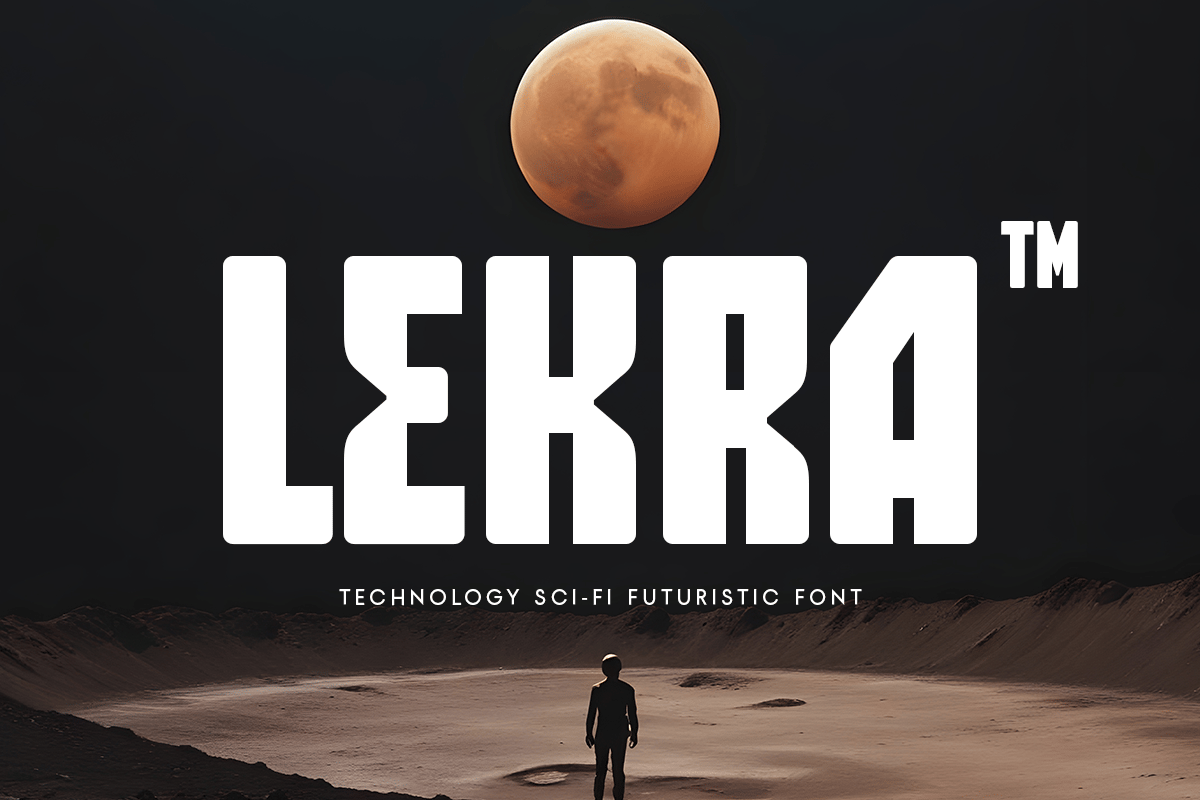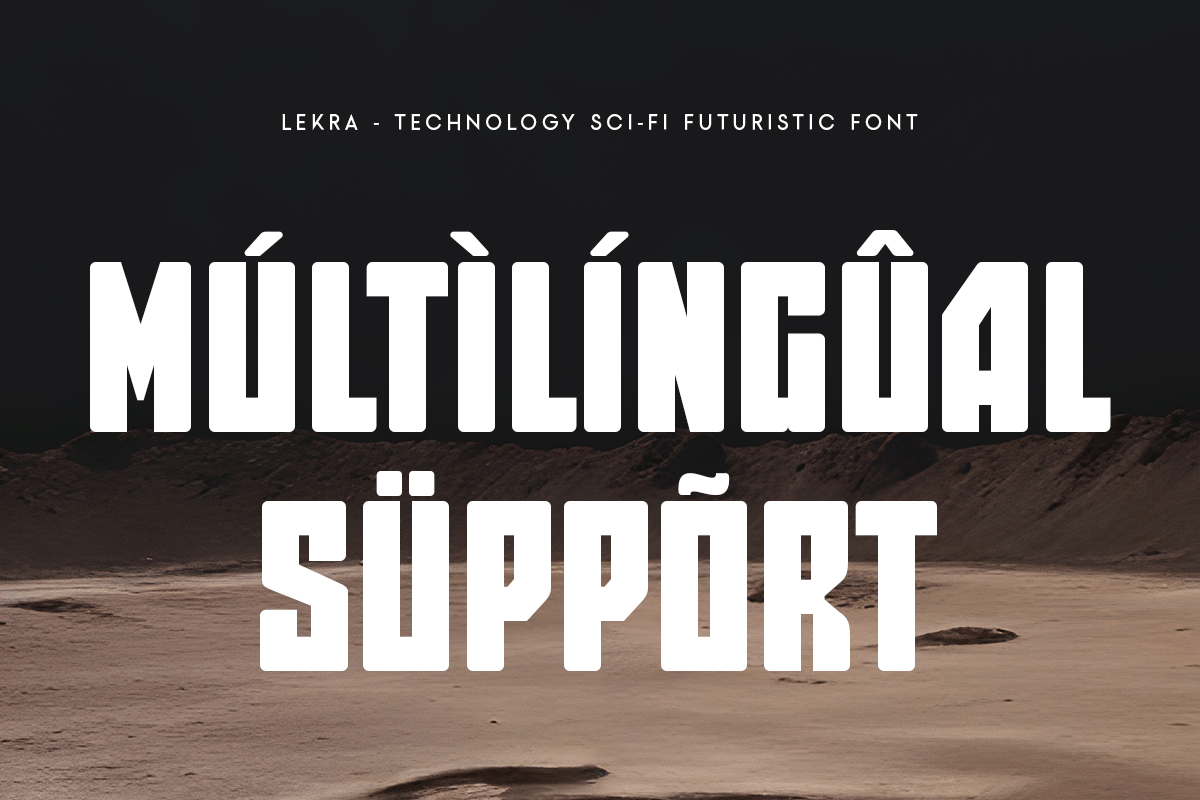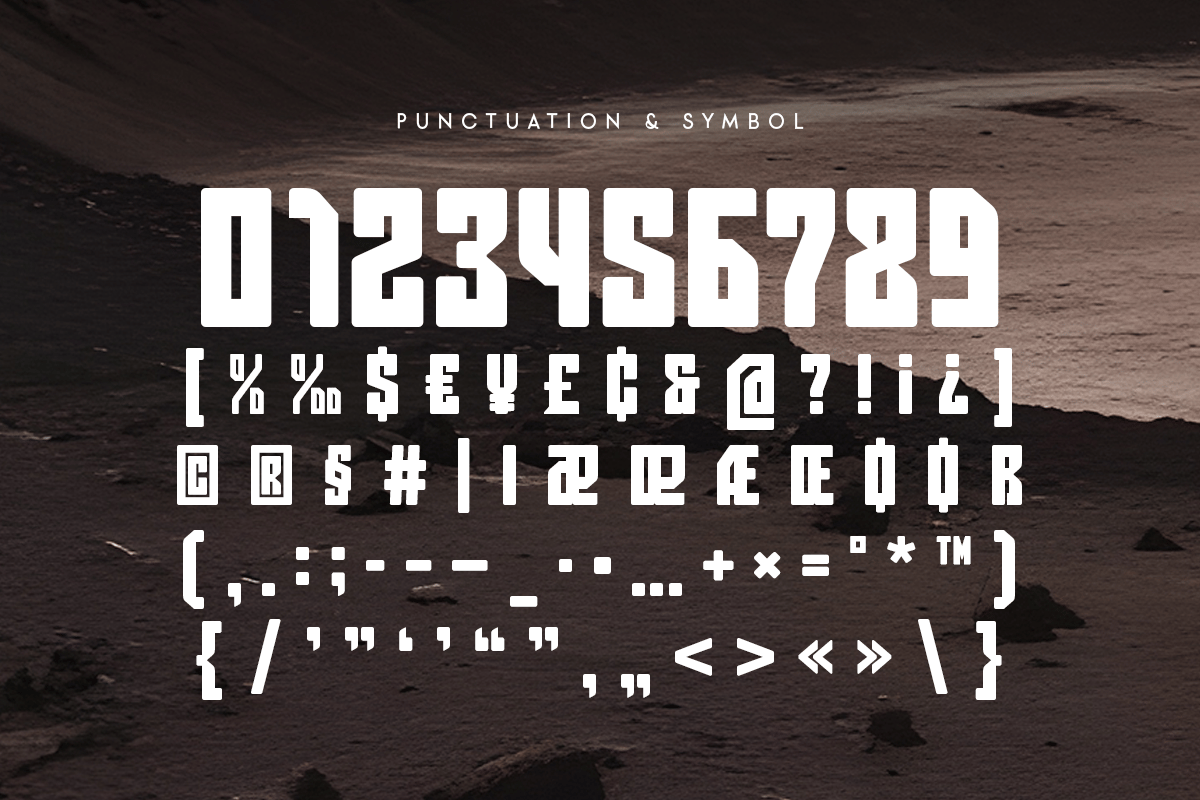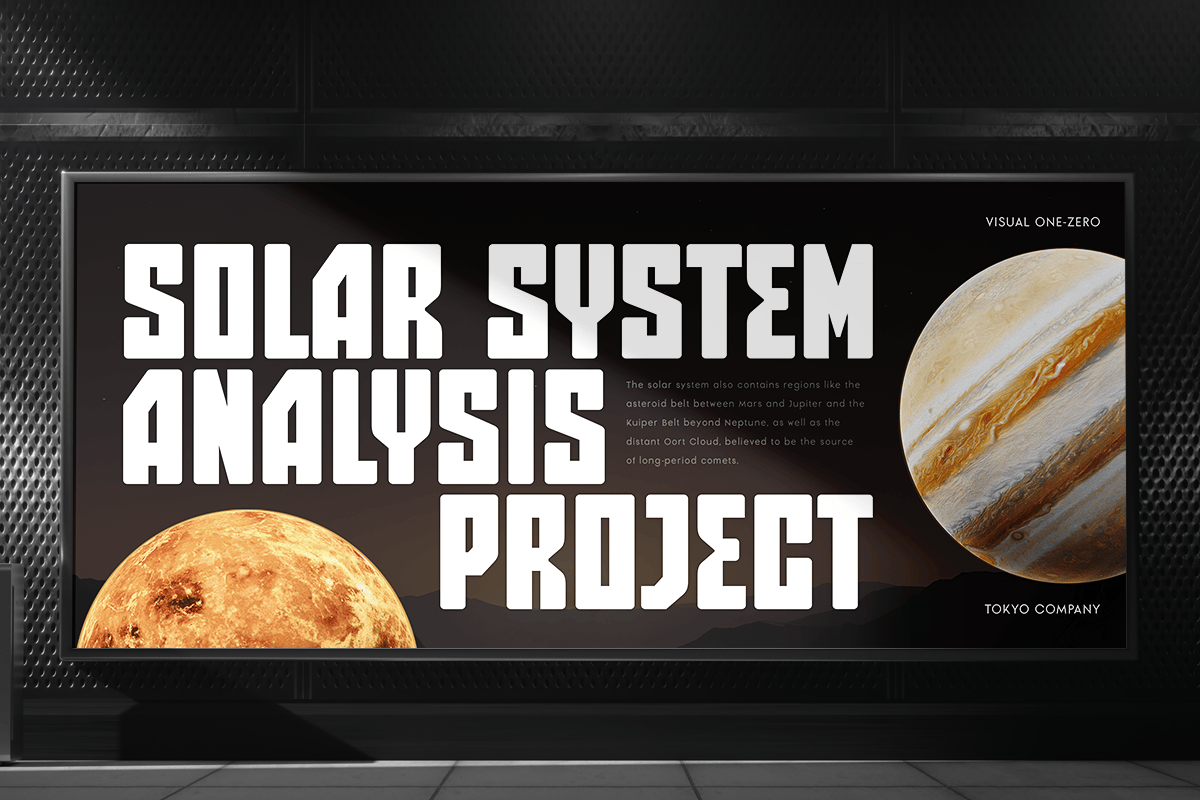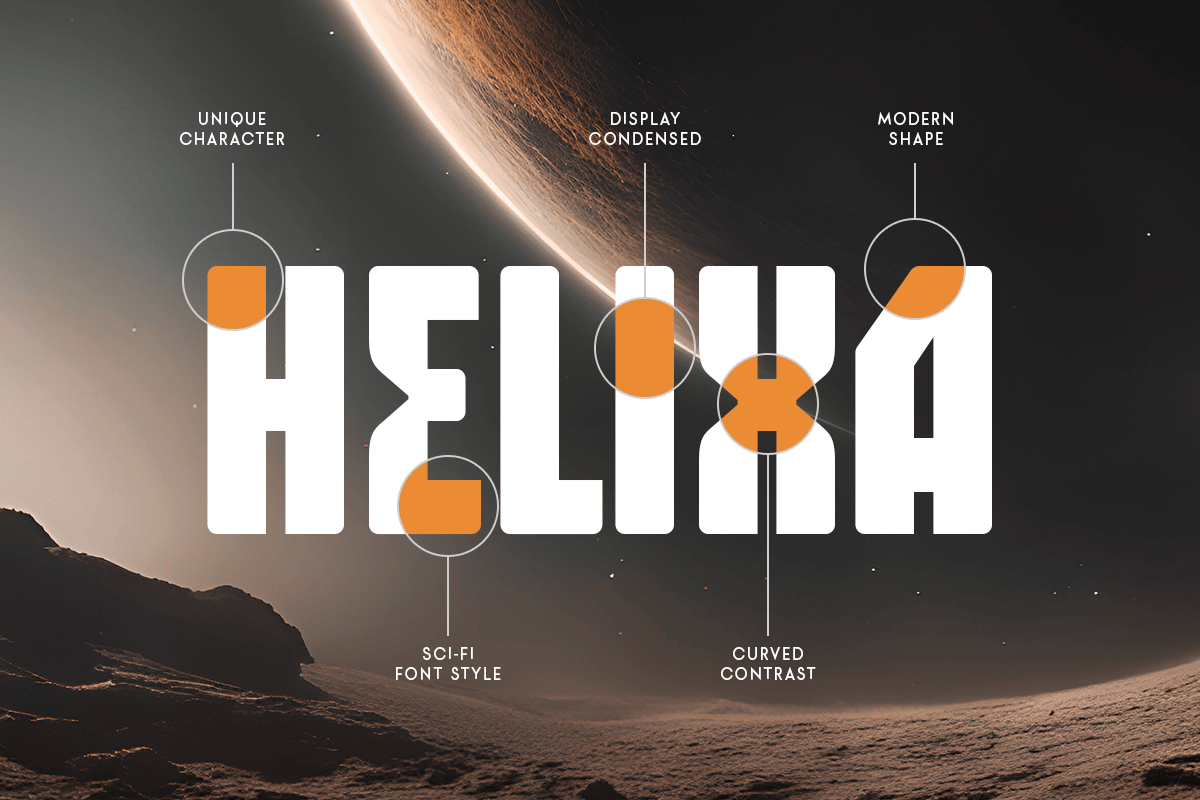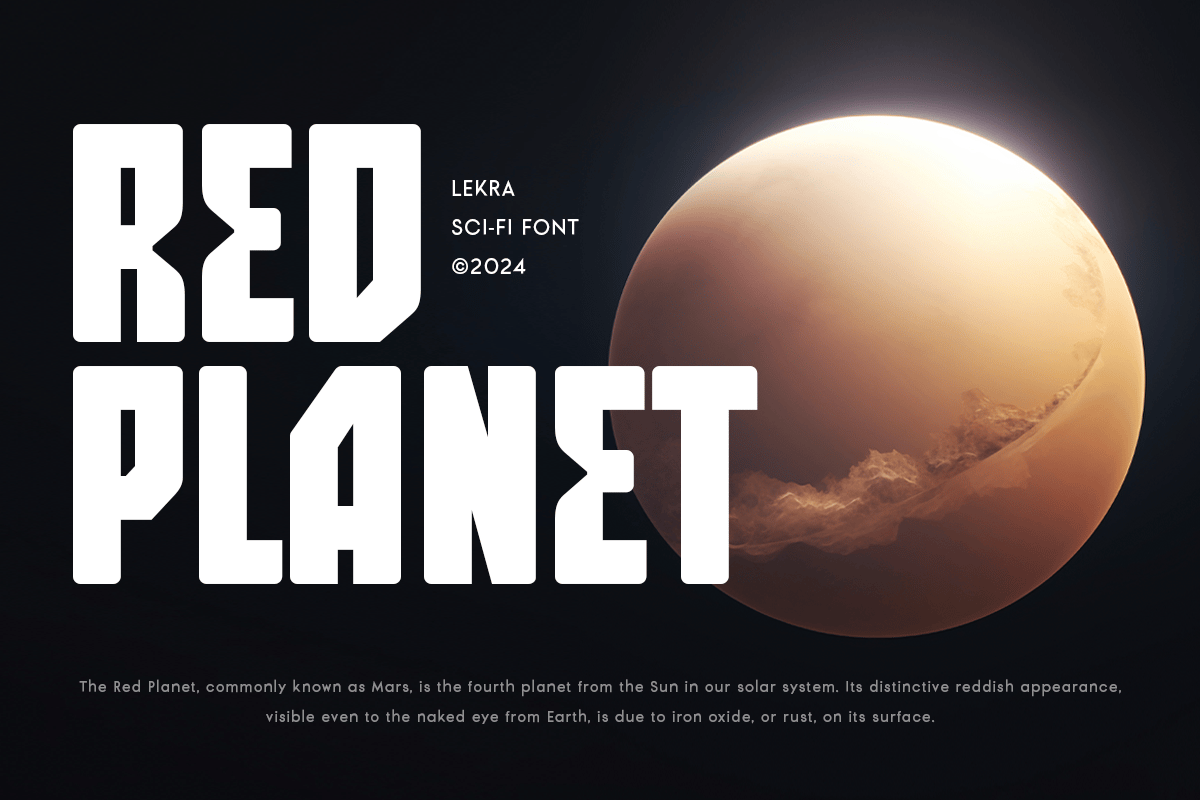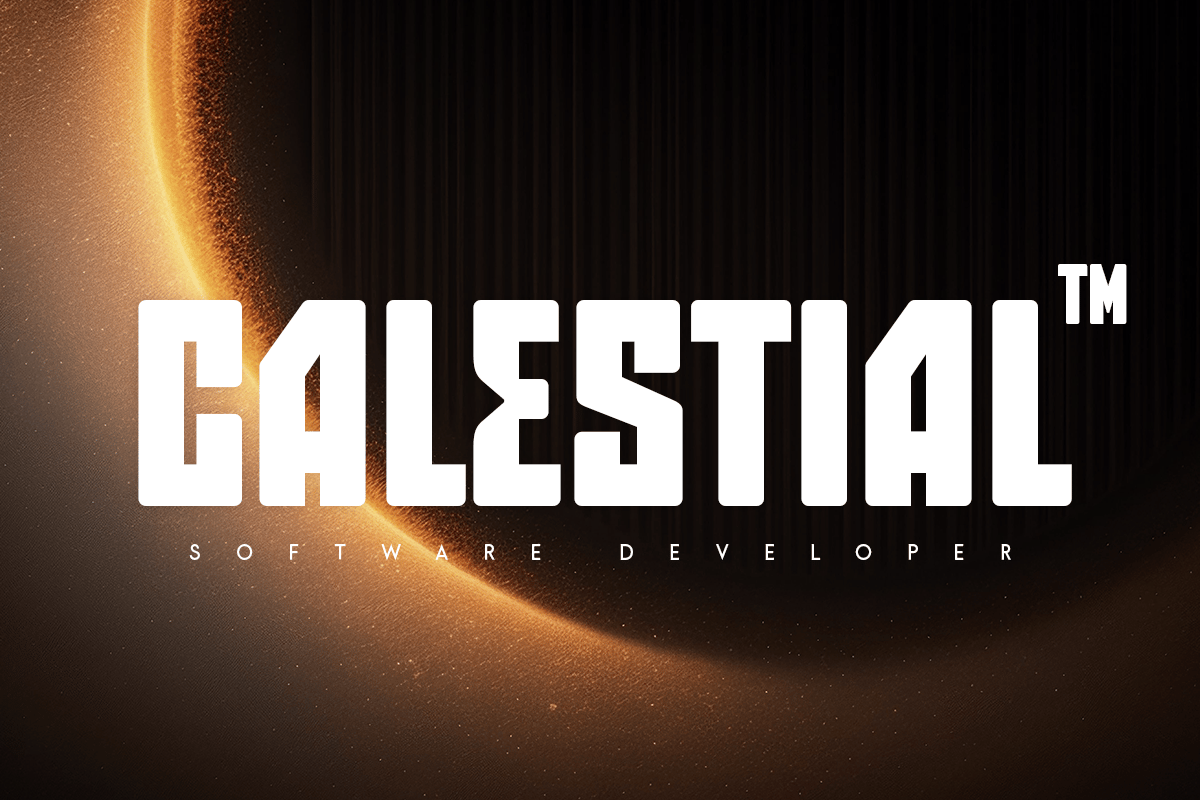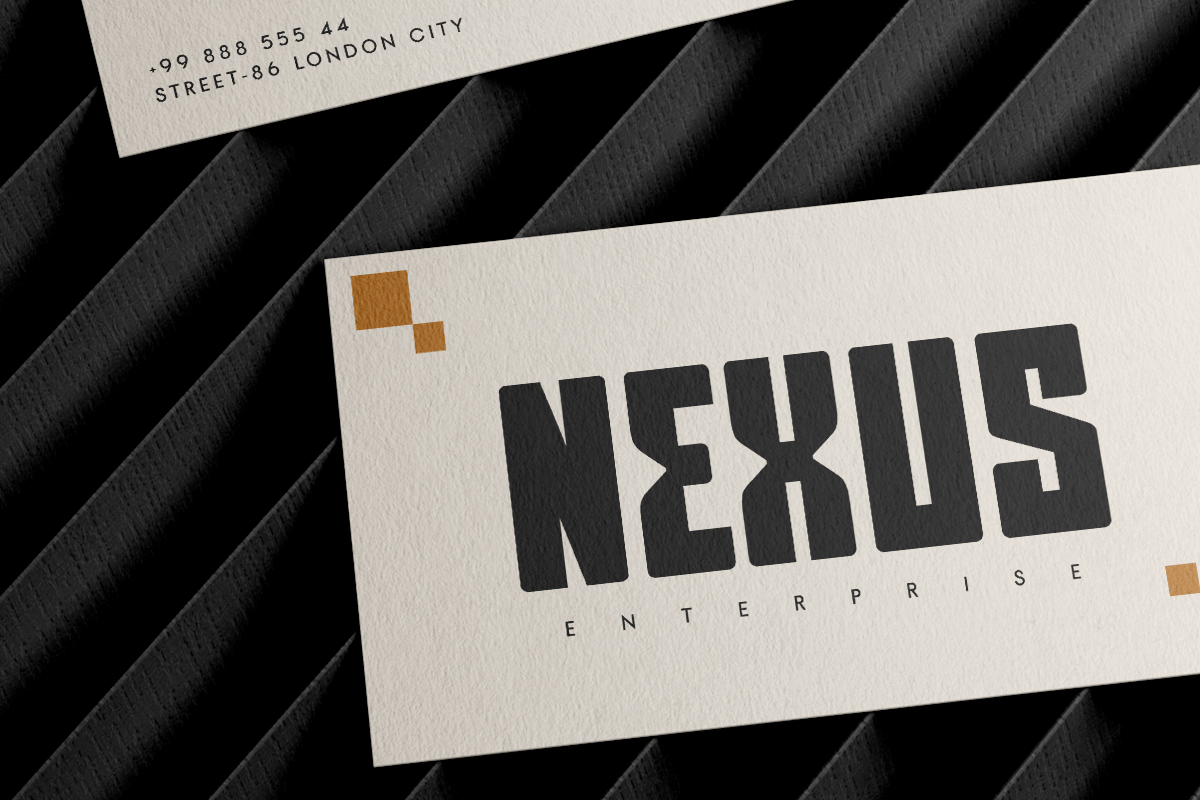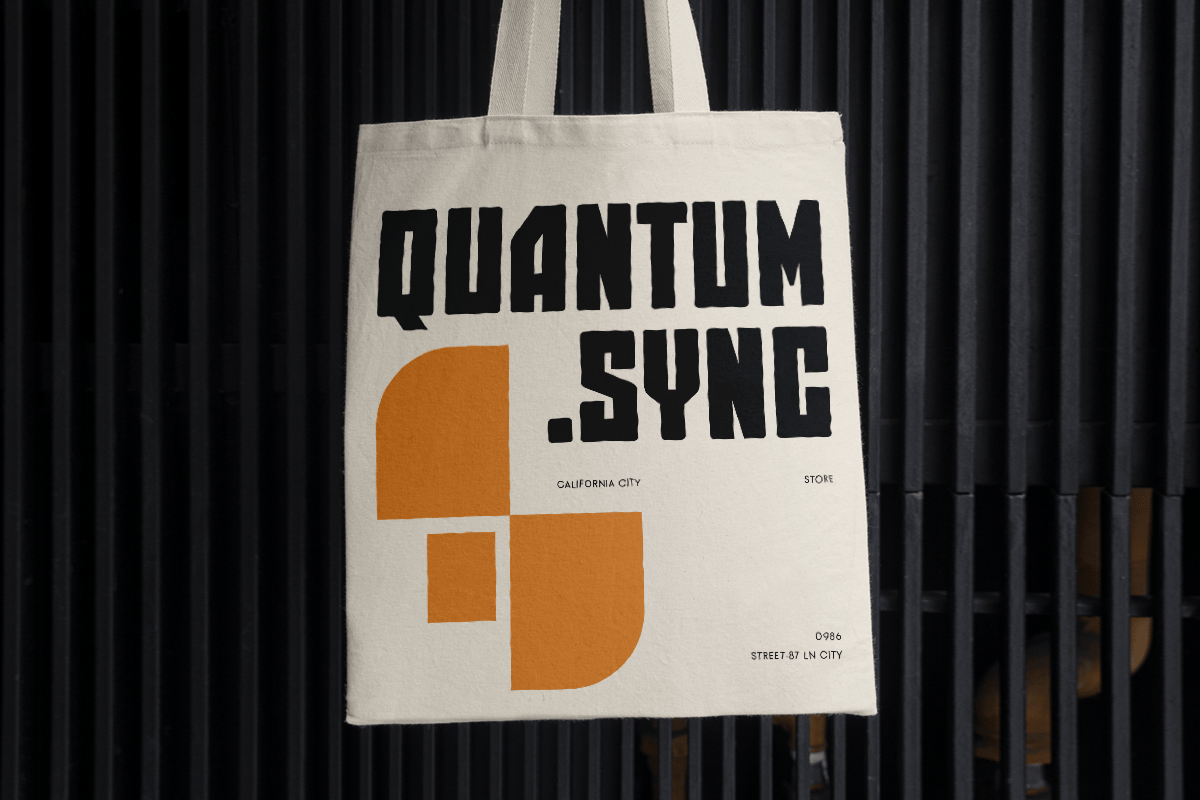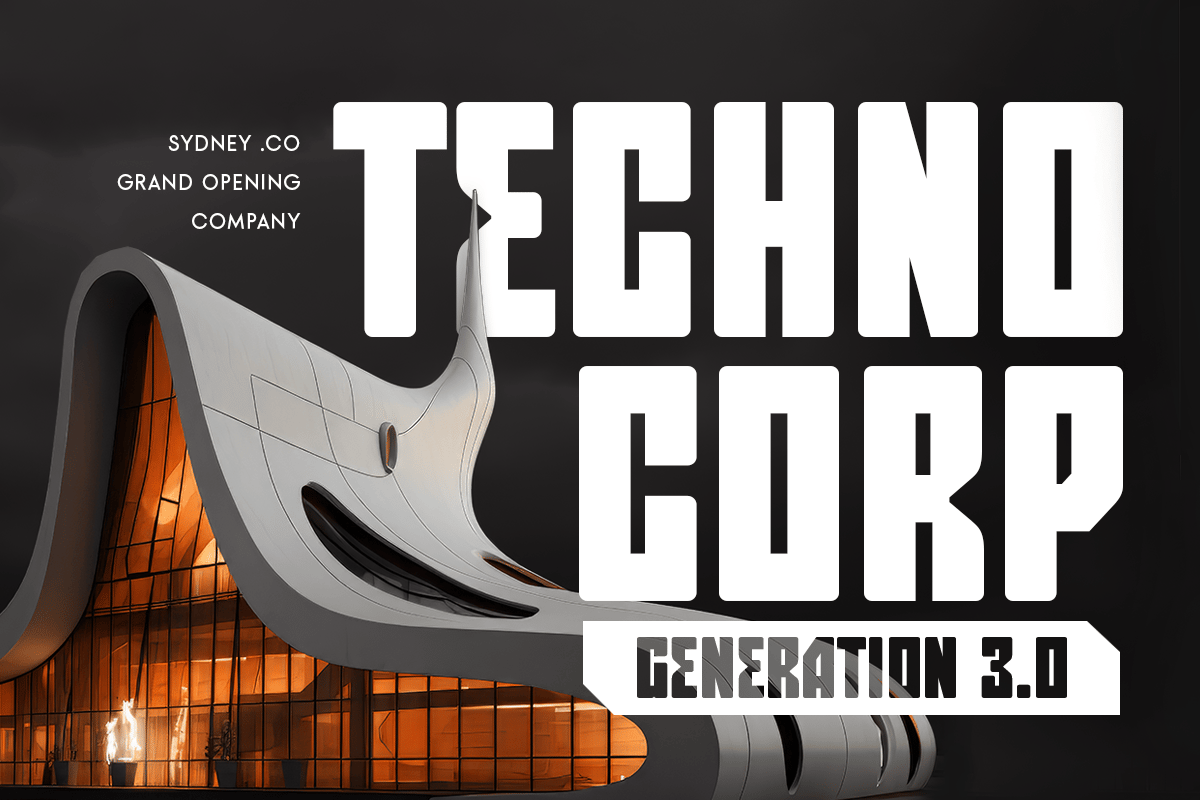
Lekra – Technology Sci-fi Futuristic Font
Introducing Lekra, a cutting-edge font designed to blend the worlds of technology, sci-fi, and futuristic aesthetics. Perfect for modern projects and innovative designs, Lekra brings a sleek and digital touch to your creative work.
The Story Behind Lekra:
Lekra was inspired by the rapid advancements in technology and the ever-evolving world of sci-fi. Imagine a future where digital interfaces and sleek designs are the norm, where every element is crafted with precision and style. This font captures that vision, offering a modern and futuristic look for your projects. Lekra is ideal for designers who want to push the boundaries and explore new frontiers in their work.
Lekra Font Features:
- Modern Design: Contemporary and stylish, perfect for futuristic projects.
- Sci-fi Aesthetic: Sleek lines and sharp angles that evoke a sense of innovation and advanced technology.
- Versatile Usage: Ideal for logos, branding, headlines, posters, and tech-related designs.
- High Legibility: Clear and sharp, ensuring your message is communicated effectively.
- Futuristic Appeal: Combines modern style with a vision of the future.
- Inspirational Previews: Includes sample designs to spark your creativity.
Perfect For:
- Tech Branding: Create sleek and memorable logos for tech companies and startups.
- Futuristic Designs: Design eye-catching posters, flyers, and promotional materials with a sci-fi twist.
- Professional Materials: Develop modern and stylish business cards, letterheads, and office stationery.
- Marketing and Advertising: Enhance brochures, advertisements, and digital campaigns with a futuristic touch.
With Lekra, your designs will stand out as innovative and forward-thinking. Whether you’re working on tech branding, futuristic designs, or professional materials, Lekra provides the perfect blend of modern aesthetics and sci-fi appeal. Elevate your design projects with Lekra and bring a touch of the future to your work.